Step into Barbie’s fabulous world of typography! This curated collection of 25 pink-perfect Barbie fonts will transform your designs from ordinary to extraordinary. Whether you’re creating party invitations, branding for a girly business, or just want to add some playful elegance to your projects, these fonts capture everything we love about Barbie – glamour, fun, and endless style possibilities. Let’s explore these dreamy typefaces!
Barbie Fonts
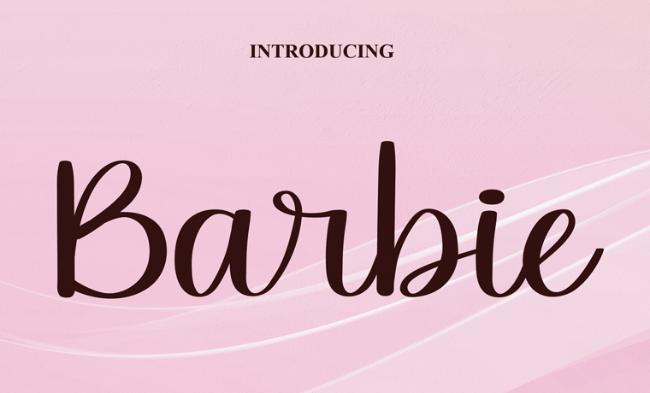
The classic Barbie logo font – fun, fashionable and instantly recognizable.
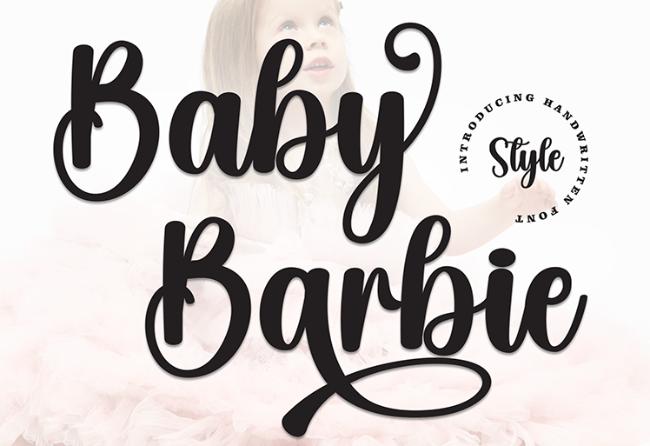
Softer, rounder version of the classic Barbie font for children’s products.
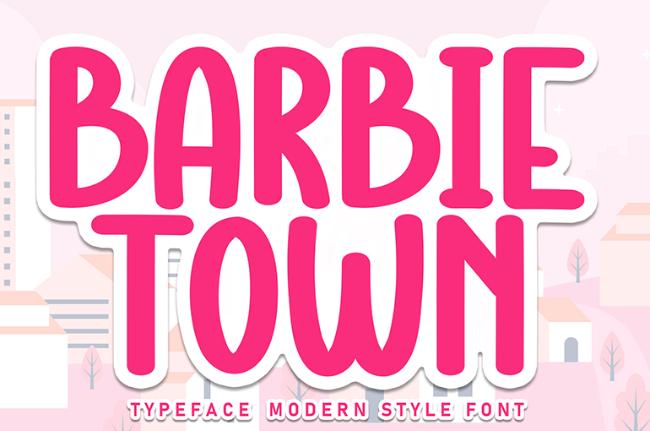
Playful font capturing the fun of Barbie’s world with bouncy baseline.
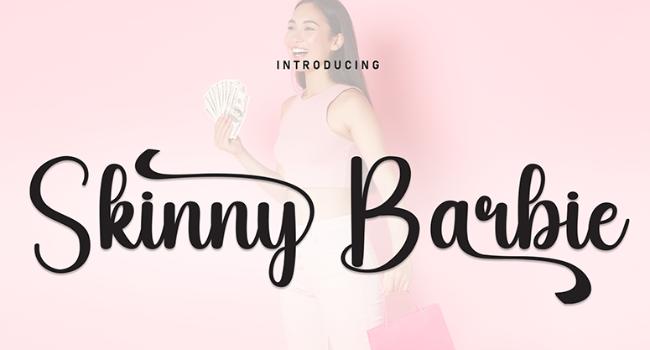
Tall slender version of the classic font with fashion-forward elegance.
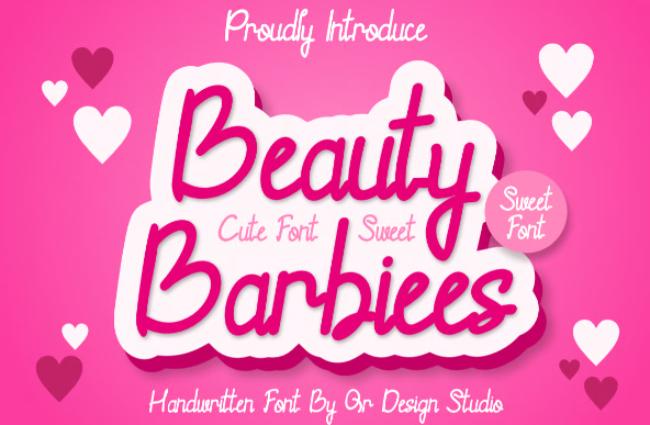
A glamorous display font with elegant curves that embodies Barbie’s luxurious aesthetic, perfect for beauty brands and
fashion headlines.
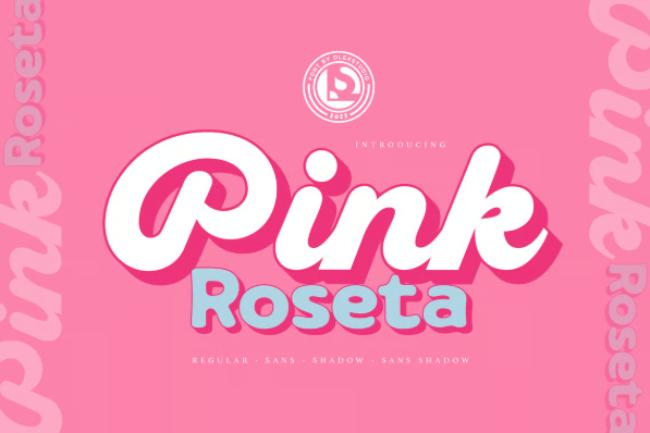
Delicate floral-inspired letters with romantic pink aesthetics, ideal for
wedding stationery or vintage-inspired designs.
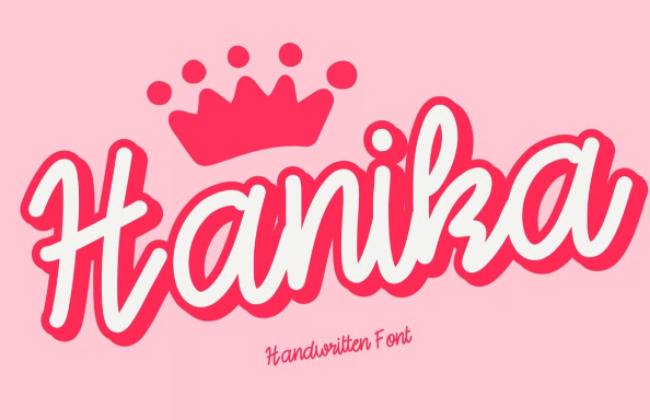
Playful yet sophisticated script that balances fun and elegance, great for logos and
product packaging.
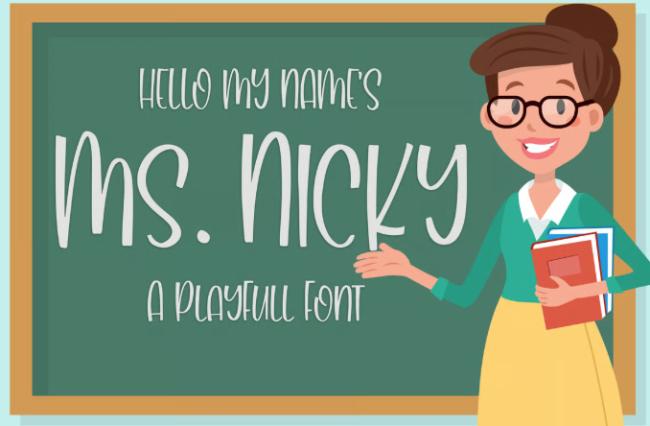
Bouncy, energetic letters perfect for children’s products and party invitations.
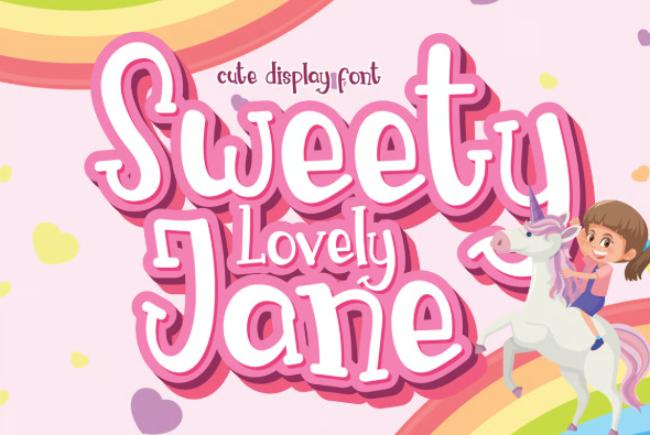
Soft rounded letters with sweet personality, ideal for bakery packaging or feminine blogs.
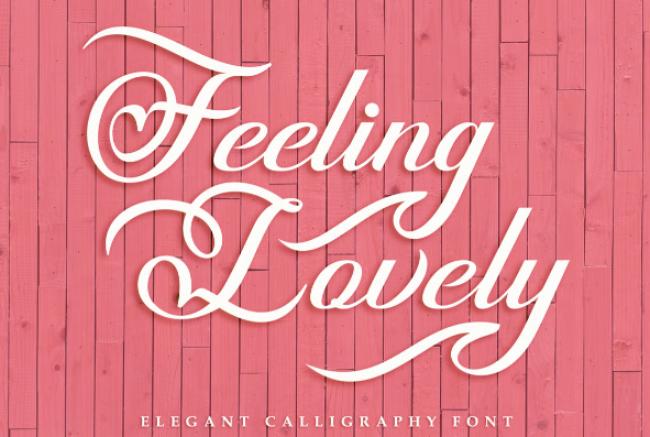
Elegant script that flows like pink satin ribbon, perfect for luxury branding.
Authentic handwritten feel with natural bounce, great for personal branding.
Bubblegum-sweet rounded sans-serif that radiates happiness and joy.
Floral elements that bloom from letters, creating beautiful garden effects.
Extravagant script with lush floral elements for luxurious invitations.
Smooth, voluptuous curves perfect for cosmetics branding.
Playful chalkboard-style font with hand-drawn authenticity.
Bubbly display font with 3D effects that pop off the page.
Graceful flowing letters with delicate hairlines for luxury branding.
Energetic brush script with authentic hand-painted texture.
Stretchy letterforms that look like chewy bubblegum for kids’ products.
Romantic swirls with heart-adorned letters for Valentine’s designs.
Friendly handwritten style combining approachability with personality.
Ultra-rounded chunky letters with retro 70s-inspired charm.
Sweet and quirky display font with handcrafted charm.
Elegant yet approachable script for boutique logos.